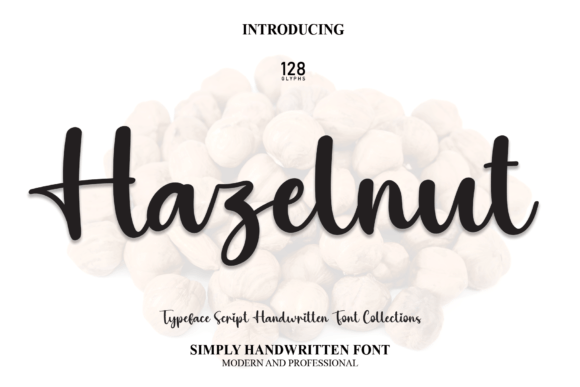
Journey into the realm of elegance with Hazelnut Font, a captivating script font that will cast a spell on your designs. Handcrafted with meticulous attention to detail, Hazelnut embodies the essence of romance and charm, adding a touch of sophistication to every project it graces.
Unleash your creativity and let Hazelnut's graceful strokes weave magic into your greeting cards, invitations, branding, and packaging. Its enchanting characters dance across the page, evoking a sense of nostalgia and timeless beauty. Imagine the joy of receiving a heartfelt note penned in Hazelnut's flowing script or the elegance of a wedding invitation adorned with its delicate flourishes.
Step into a world where words take on a life of their own, where every letter becomes a work of art. Hazelnut's versatility knows no bounds, seamlessly adapting to a multitude of design styles. Whether you seek a whimsical touch for your Christmas designs, a touch of vintage charm for your branding, or a dash of elegance for your social media posts, Hazelnut will effortlessly elevate your creations.
With Hazelnut as your creative companion, you'll find yourself immersed in a symphony of flowing lines and enchanting curves. Its carefully crafted swashes and ligatures add a touch of playfulness and movement to your designs, capturing the attention of your audience and leaving them spellbound.
So, embrace the allure of Hazelnut Font and embark on a journey where every design tells a captivating story. Let its enchanting characters dance across your projects, leaving a trail of beauty and inspiration in their wake. Experience the magic of Hazelnut today and unlock a world of endless creative possibilities.